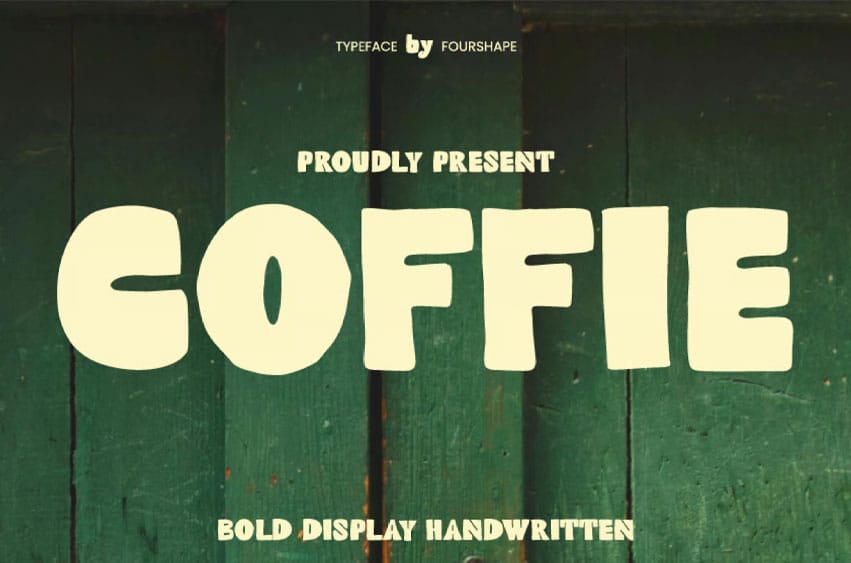
Coffie Font Bold Typeface Font Bold and friendly display font designed to bring warmth and charm to your creative projects. With its rounded edges and slightly quirky letterforms, this font feels handcrafted and approachable, making it perfect for branding, packaging, café menus, posters, and lifestyle products.